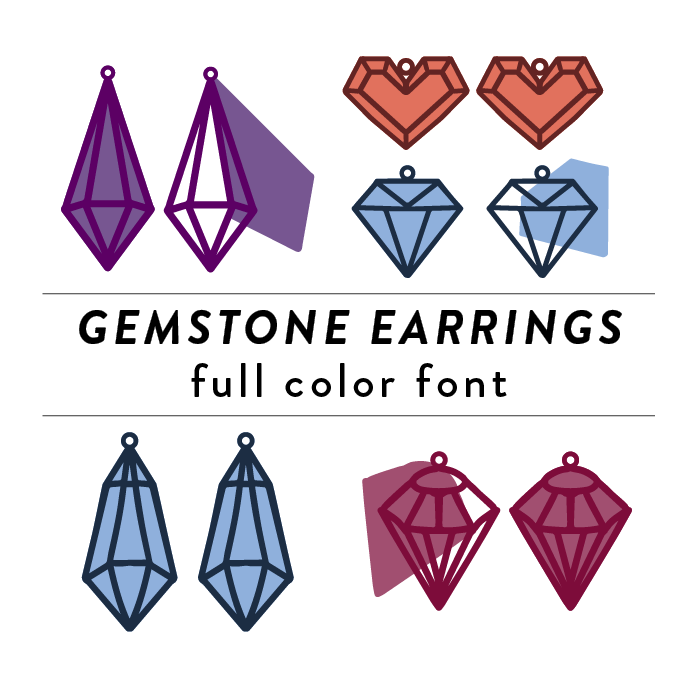
Gemstone Earrings Full Color Font is a decorative font design inspired by the intricate patterns of gemstone earrings. It features straight line shapes and vibrant colors, adding a touch of elegance and sophistication to any project. Layer the backing behind the gemstone. Perfect for creating a gift for someone special. This font is a OTF craft font that will appear in color only when used with the silhouette software.